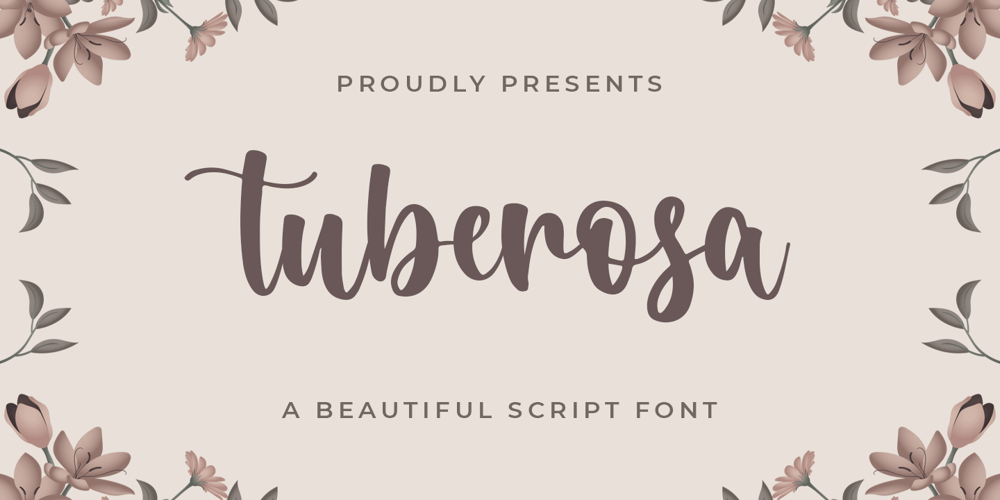
Tuberosa Font Family was designed by Bangkit Tri Setiadi and published by Blankids. Tuberosa contains 1 styles and family package options. Introducing of our new product the name is Tuberosa a beauty font. Tuberosa inspired by modern calligraphy this font is a fun theme very good for display, valentine theme, wedding, logotype and etc